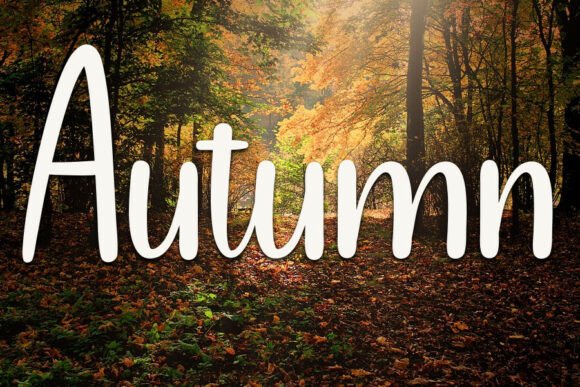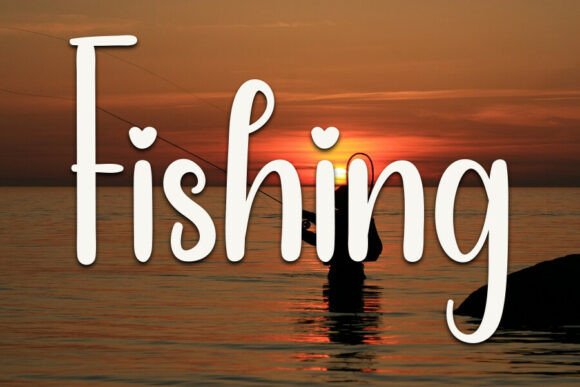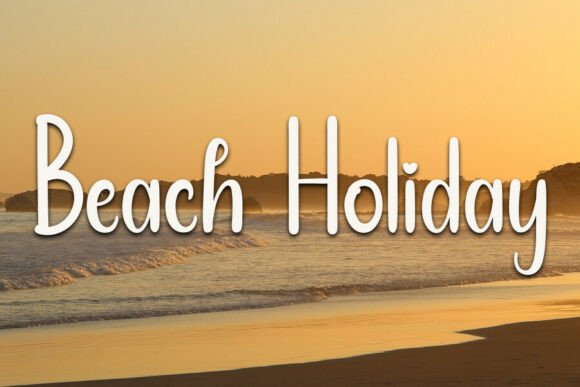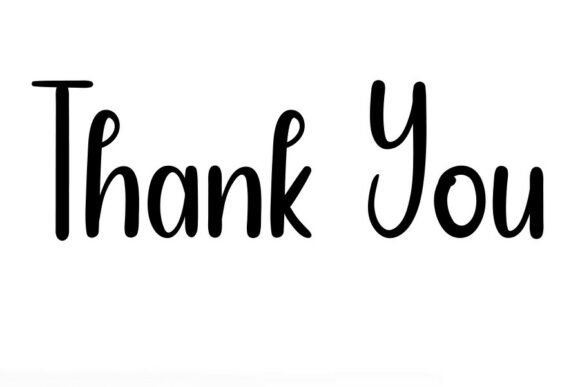
Bathroom Font: Elevate Your Designs with Elegance and Sophistication
Are you a designer or crafter looking for a font that exudes style and elegance? Look no further than the Bathroom Font, a stunning handwritten font that’s perfect for a variety of design projects. In this article, we’ll dive into the features and benefits of this beautiful font, and explore how it can elevate your designs to the next level.
A Stylish and Elegant Handwritten Font
The Bathroom Font is a stylish and incredibly elegant handwritten font that’s sure to impress. Its flowing lines and delicate curves make it perfect for designs that require a touch of sophistication and refinement. Whether you’re working on a wedding invitation, thank you card, quote, greeting card, logo, or business card, this font is sure to add a level of elegance and style that’s hard to match.
One of the best things about the Bathroom Font is its versatility. It’s a font that can be used in a wide range of design projects, from formal events like weddings and galas, to more casual designs like greeting cards and quotes. Its elegant and refined style makes it perfect for designs that require a level of sophistication, while its playful and whimsical feel makes it great for more creative and artistic projects.
The Bathroom Font is PUA encoded, which means that you can access all of the glyphs and alternates with ease. This makes it easy to customize your designs and add your own personal touch. With PUA encoding, you can access a wide range of characters, including ligatures, alternates, and swashes, allowing you to create unique and eye-catching designs that stand out from the crowd.
The Bathroom Font is perfect for designers and crafters who are looking for a high-quality font that can help them create stunning designs. Whether you’re a professional designer or a hobbyist crafter, this font is sure to meet your needs. Its elegant and refined style makes it perfect for designs that require a level of sophistication, while its versatility and ease of use make it great for designers and crafters of all skill levels.
Tips for Using the Bathroom Font
Here are a few tips for using the Bathroom Font in your designs:
- Use it for headings and titles: The Bathroom Font is perfect for headings and titles, where its elegant and refined style can really shine.
- Pair it with a sans-serif font: Pairing the Bathroom Font with a sans-serif font can create a beautiful contrast that’s perfect for designs that require a level of sophistication.
- Experiment with different colors: The Bathroom Font looks great in a wide range of colors, from elegant metallics like gold and silver, to rich jewel tones like emerald green and navy blue.
- Don’t be afraid to get creative: The Bathroom Font is a versatile font that can be used in a wide range of design projects. Don’t be afraid to get creative and experiment with different designs and ideas.
In conclusion, the Bathroom Font is a stunning handwritten font that’s perfect for designers and crafters who are looking for a high-quality font that can help them create elegant and sophisticated designs. Its versatility, ease of use, and PUA encoding make it a great choice for a wide range of design projects, from formal events like weddings and galas, to more casual designs like greeting cards and quotes. Whether you’re a professional designer or a hobbyist crafter, the Bathroom Font is sure to meet your needs and help you create stunning designs that stand out from the crowd.